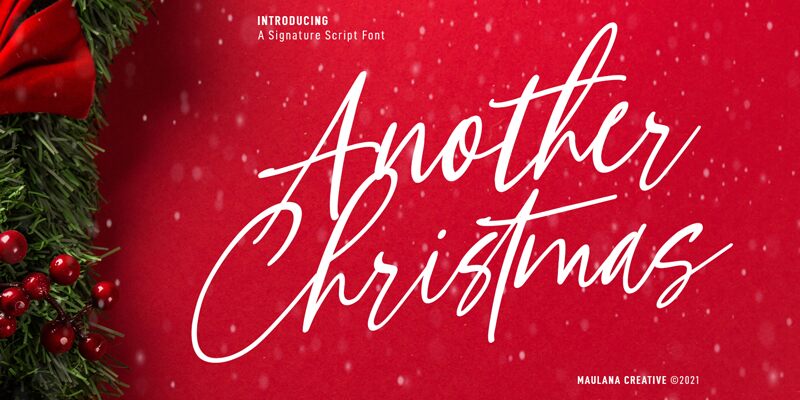
Another Christmas Free Regular
Another Christmas is a stunning handwritten font designed by the talented Maulana Creative. This semi-light typeface boasts an elegant signature style that adds a touch of sophistication to any project. Whether you're creating holiday-themed designs, wedding invitations, or branding materials, Another Christmas is the perfect font choice. Its graceful curves and natural strokes lend themselves well to everything from logos to packaging designs. Give your projects a personal touch with this beautiful font and make them stand out from the crowd. Add Another Christmas to your collection today and elevate your design game!